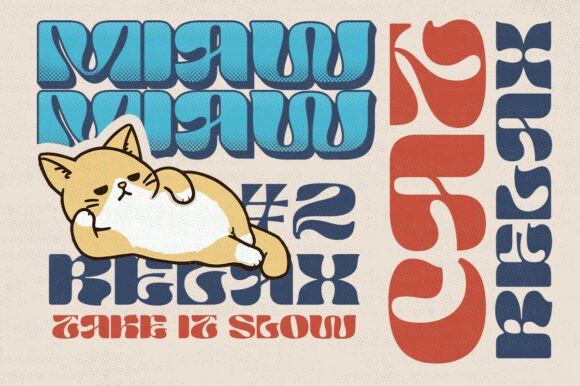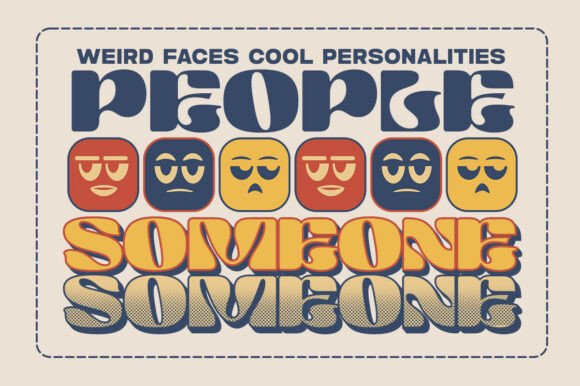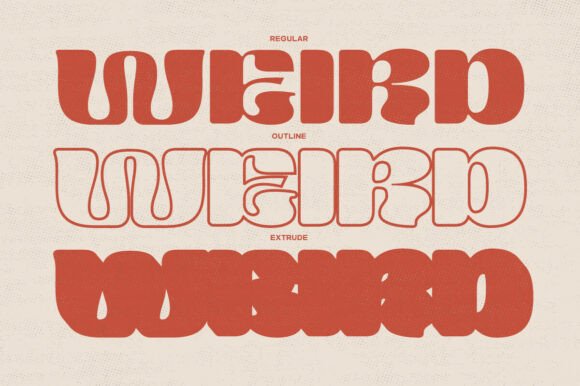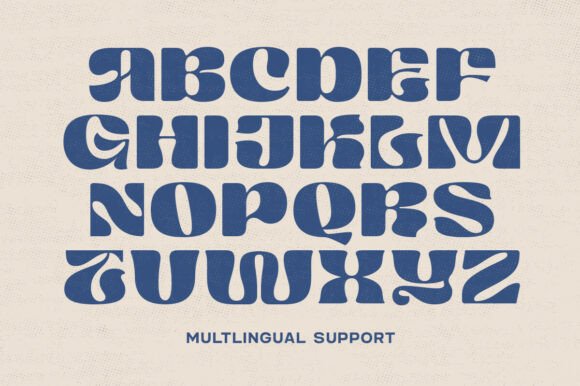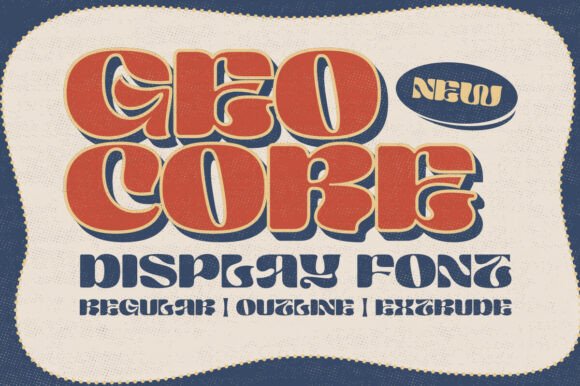
Introducing Geo Core Font: The Ultimate Retro Display Font for Designers
Are you looking for a font that can add a touch of nostalgia and playfulness to your designs? Look no further than Geo Core, a bold retro display font inspired by 70s geometric shapes, funky psychedelic curves, and vintage poster lettering. With its robust structure, decorative nature, and undeniable charm, Geo Core is the perfect choice for designers who want to create eye-catching headlines, nostalgic logos, and vintage-inspired merchandise.
What Makes Geo Core Font So Special?
Geo Core font comes with 3 expressive styles — Regular, Outline, and Extrude — allowing you to create layered effects, colorful retro combinations, and eye-catching headlines. Each letter is designed with playful cuts, rounded edges, and a nostalgic flow that captures the warm spirit of vintage typography and analog printing. The bold, rounded shapes and groovy style of the Geo Core font make it perfect for designing nostalgic logos, eye-catching posters, impactful headlines, and vintage-inspired merchandise like T-shirts and patches.
Key Features of Geo Core Font
- Bold and Playful Design: Geo Core font features bold, rounded shapes and playful cuts that give it a unique and nostalgic look.
- 3 Expressive Styles: With Regular, Outline, and Extrude styles, you can create layered effects, colorful combinations, and eye-catching headlines.
- High Readability: The robust structure of Geo Core font ensures maximum readability, making it perfect for headlines, posters, and other display text.
- Decorative Nature: The font’s decorative nature guarantees it stands out from the crowd, adding a touch of personality to your designs.
- Vintage-Inspired: Geo Core font is inspired by 70s geometric shapes, funky psychedelic curves, and vintage poster lettering, making it perfect for designers who want to create nostalgic and retro-style designs.
Geo Core font is perfect for designers and crafters who want to add a touch of nostalgia and playfulness to their work. Whether you’re designing posters, album covers, retro branding, or vintage-inspired merchandise, Geo Core font is the ultimate choice. Its bold and playful design, combined with its high readability and decorative nature, make it a versatile font that can be used in a variety of design projects.
Ideal Use Cases for Geo Core Font
- Posters & Album Covers: Create eye-catching posters and album covers with Geo Core font’s bold and playful design.
- Retro Branding: Add a touch of nostalgia to your brand with Geo Core font’s vintage-inspired design.
- Vintage-Inspired Merchandise: Design vintage-inspired merchandise like T-shirts, patches, and stickers with Geo Core font’s bold and playful design.
- Headlines and Display Text: Use Geo Core font to create impactful headlines and display text that stands out from the crowd.
In conclusion, Geo Core font is a bold retro display font that is perfect for designers and crafters who want to add a touch of nostalgia and playfulness to their work. With its 3 expressive styles, bold and playful design, and high readability, Geo Core font is the ultimate choice for designing nostalgic logos, eye-catching posters, impactful headlines, and vintage-inspired merchandise. So why wait? Get your hands on Geo Core font today and start creating designs that are truly retro and undeniably impactful!